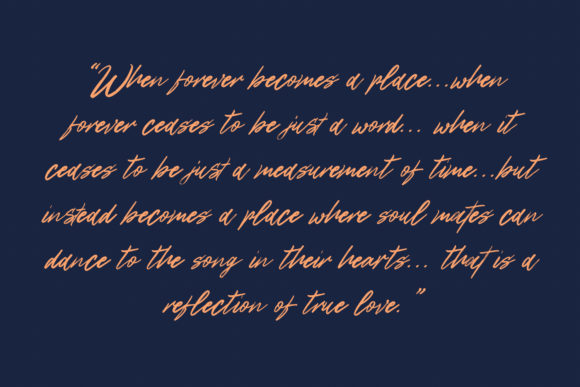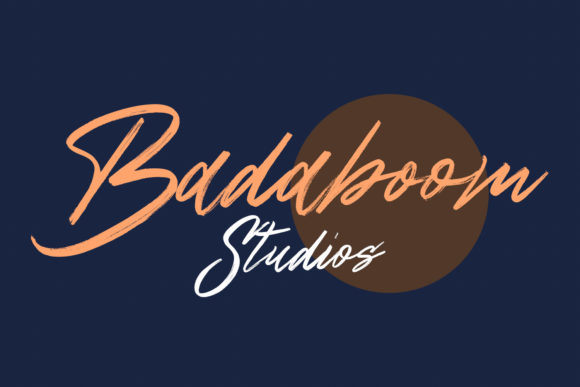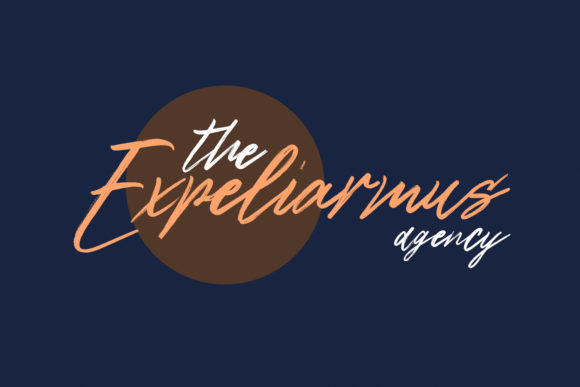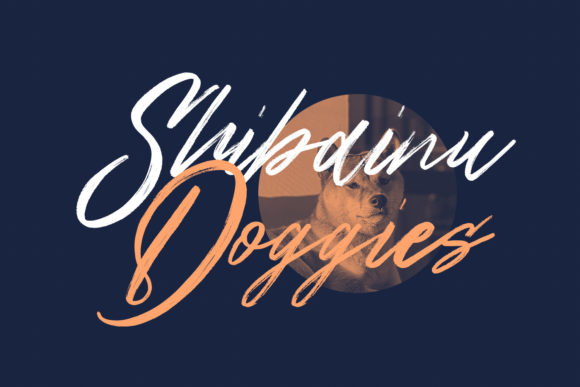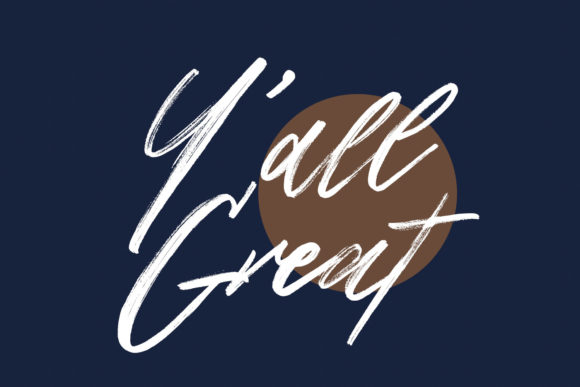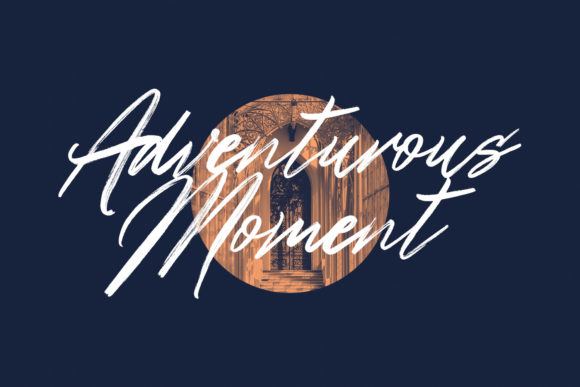
Introduction to Northloops Font
Have you ever stared at a blank canvas, waiting for the perfect font to spark your creativity? As designers, we’ve all been there. It’s that moment when the right typography can make or break a project. And that’s exactly where the Northloops Font comes in – a high-quality design resource that adds an elegant touch to any creative project.
With its contemporary atmosphere and impeccable form, inspired by timeless classic calligraphy, the Northloops Font is a valuable addition to any designer’s toolkit. Whether you’re working on a project with a transparent background or need a font that makes a statement, Northloops Font is the perfect choice. And the best part? It’s PUA encoded, making it easy to access all glyphs and swashes with ease.
Key Features of Northloops Font
- High-quality design resource for creative projects, offering a unique and stylish aesthetic.
- Includes a transparent background, allowing for seamless integration with various design elements.
- Features a medium to large size, with each character carefully crafted to maintain crispness at high resolutions (up to 300 DPI).
- Unique characteristics include its modern and minimalist design, making it perfect for branding, logos, and digital art.
- Designed to be versatile and adaptable, the Northloops Font is suitable for a wide range of creative projects, from print to digital media.
Honest Review: Northloops Font
As a designer, I’m always on the lookout for high-quality design resources to elevate my creative projects. Recently, I had the chance to explore the Northloops Font, and I’m excited to share my honest review.
Here’s what I liked:
- ✨ High-quality design that’s perfect for modern creative projects.
- ✨ Comes with a transparent background, making it easy to use in various design scenarios.
- ⚠️ The font family is relatively small, with only a few styles to choose from.
- ⚠️ Some users may find the font a bit too modern or trendy, which may not appeal to those with a more classic design aesthetic.
Overall, I’m impressed with the Northloops Font. While it may not be perfect for every design project, it’s a solid choice for modern creative projects that require a high-quality, modern font. With its transparent background and free download, it’s definitely worth checking out for designers looking for a reliable design resource.
The Northloops Font is a high-quality design resource ideal for creative projects. Its unique and stylish design makes it perfect for a variety of applications.
The Northloops Font is ideal for a variety of creative projects, including:
- Posters and social media graphics
For the best results, use the Northloops Font on a transparent background to create a clean and modern look. Experiment with different font sizes and styles to add depth and interest to your design.
Alternatives to Northloops Font
Open Sans is a high-quality, sans-serif font ideal for creative projects requiring a clean and modern design. It’s a versatile font suitable for both print and digital media, and can be easily customized to suit your design needs. Open Sans is available for free download and offers a transparent background, making it perfect for logos and branding materials.
Compared to Northloops Font, Open Sans has a more minimalist and sleek design, making it ideal for modern and tech-related projects. While Northloops Font has a more playful and creative feel, Open Sans provides a more professional and sophisticated look.
Lato is a high-quality, sans-serif font that’s perfect for designers looking for a clean and elegant design resource. It’s a highly customizable font that can be used for a wide range of creative projects, from logos and branding materials to digital media and print publications. Lato is available for free download and offers a transparent background, making it ideal for creative projects requiring a modern and sophisticated design.
Compared to Northloops Font, Lato has a more refined and polished design, making it ideal for luxury and high-end projects. While Northloops Font has a more playful and creative feel, Lato provides a more elegant and sophisticated look.